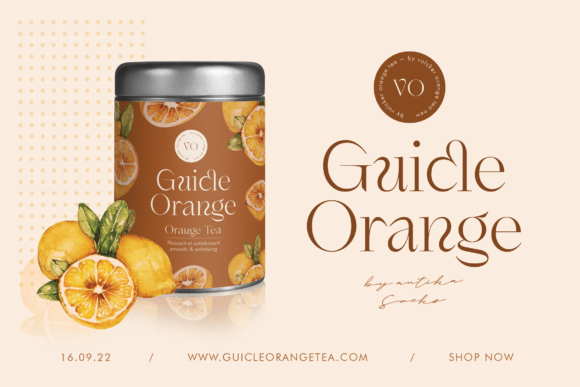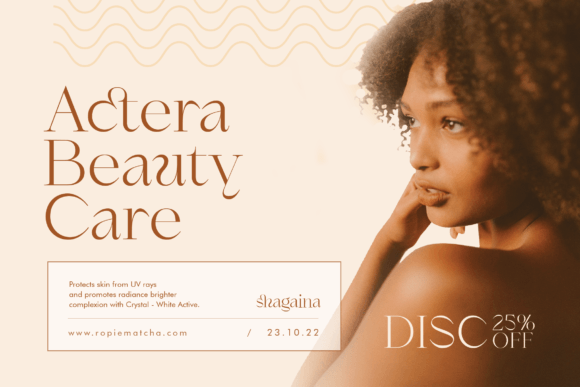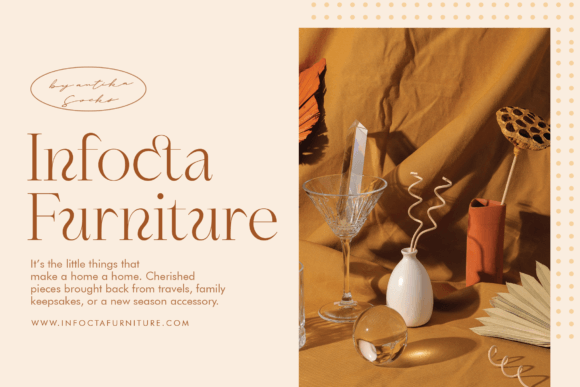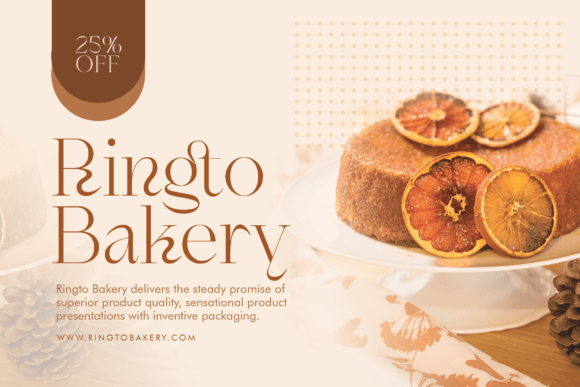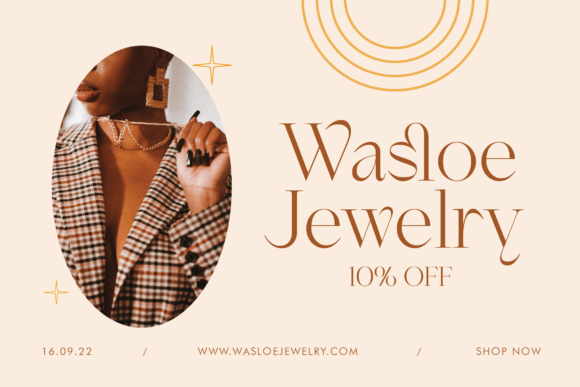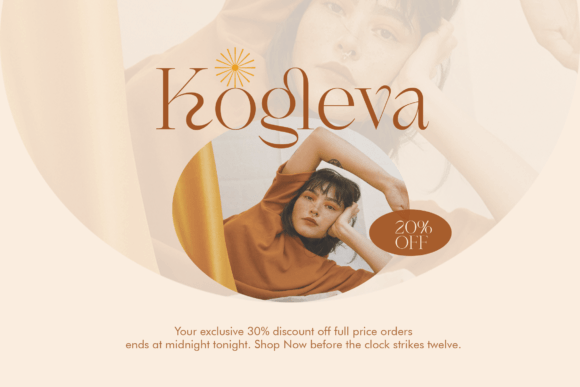
Introduction to Shagaina Font
As you sit in front of your computer, sipping your morning coffee, you’re searching for the perfect font to bring your creative project to life. The right typography can make or break the aesthetic of your design, and today, we’re excited to introduce you to the enchanting Shagaina Font.
This lovely serif font exudes a sense of romance and femininity, making it perfect for luxury branding, editorial design, and fashion promotional materials. With its expressive and aesthetic style, Shagaina Font is a valuable resource for designers looking to add a touch of elegance to their projects. Whether you’re working on a free download or a high-end design, this font is sure to impress. And the best part? It comes with a range of alternates and ligatures, giving you the creative freedom to craft a unique and captivating design.
Key Features of Shagaina Font
- Features a transparent background, allowing for easy customization and flexibility in design.
- Available in multiple weights and styles, providing versatility for a range of design needs.
- Designed with a unique aesthetic, making it an excellent choice for those seeking a distinctive look for their creative project.
- Supports a wide range of languages, ensuring its usability in various international design contexts.
Honest Review: Shagaina Font
As a designer, I’m always on the lookout for high-quality design resources to elevate my creative projects. Recently, I had the chance to try out the Shagaina Font, and I must say, it’s been a game-changer.
Here are some of the things that work well with the Shagaina Font:
- ✨ High-quality design: The font is crisp, clean, and visually stunning, making it perfect for any creative project.
- ✨ Transparent background: The font’s transparent background makes it easy to use with any background image or color, giving me more flexibility in my design.
- ⚠️ Limited character set: The font doesn’t support a wide range of languages, which might be a issue for designers working on international projects.
- ⚠️ Not suitable for body text: While the font is great for headlines and titles, it’s not the best choice for body text due to its bold and playful nature.
Overall, I’m really impressed with the Shagaina Font. It’s a fantastic design resource that’s perfect for creative projects that require a touch of elegance and sophistication. With a little planning and consideration, I think it can be a valuable addition to any designer’s toolkit.
Common Use Cases for Shagaina Font
Shagaina Font is ideal for creative projects, such as:
– Branding and marketing materials
– Digital artwork and graphics
Alternatives to Shagaina Font
The Lobster Font is a fun, cursive script font that is perfect for creative projects that require a touch of elegance and sophistication. It’s ideal for headings, titles, and other design elements where a playful, handwritten feel is desired.
Compared to Shagaina Font, Lobster Font has a more relaxed, casual vibe, making it suitable for a wider range of design applications, from wedding invitations to social media graphics.
Does the Shagaina Font include a transparent background?
Yes, the Shagaina Font includes a transparent background, making it ideal for use in design projects that require a clean and minimalist aesthetic. This feature allows you to easily layer the font over images or other design elements without any distracting background noise.